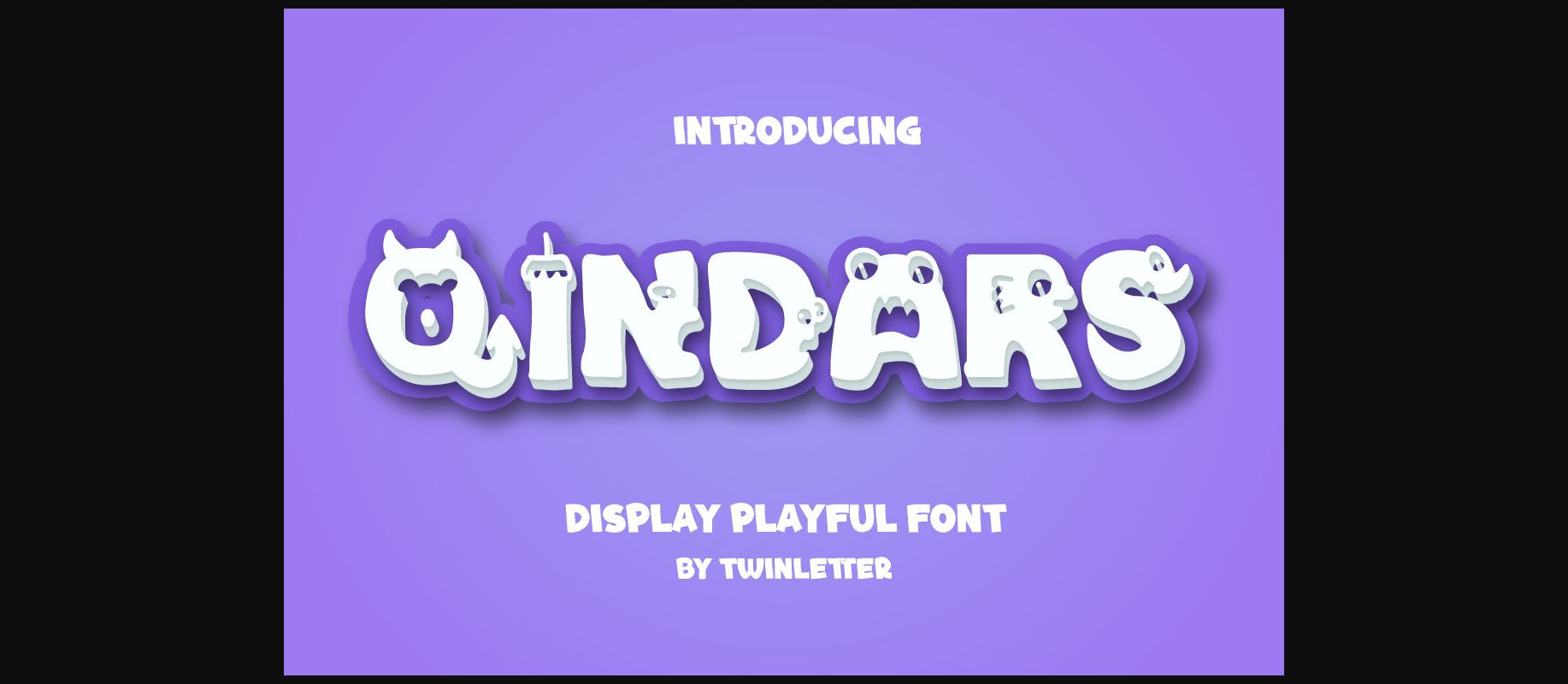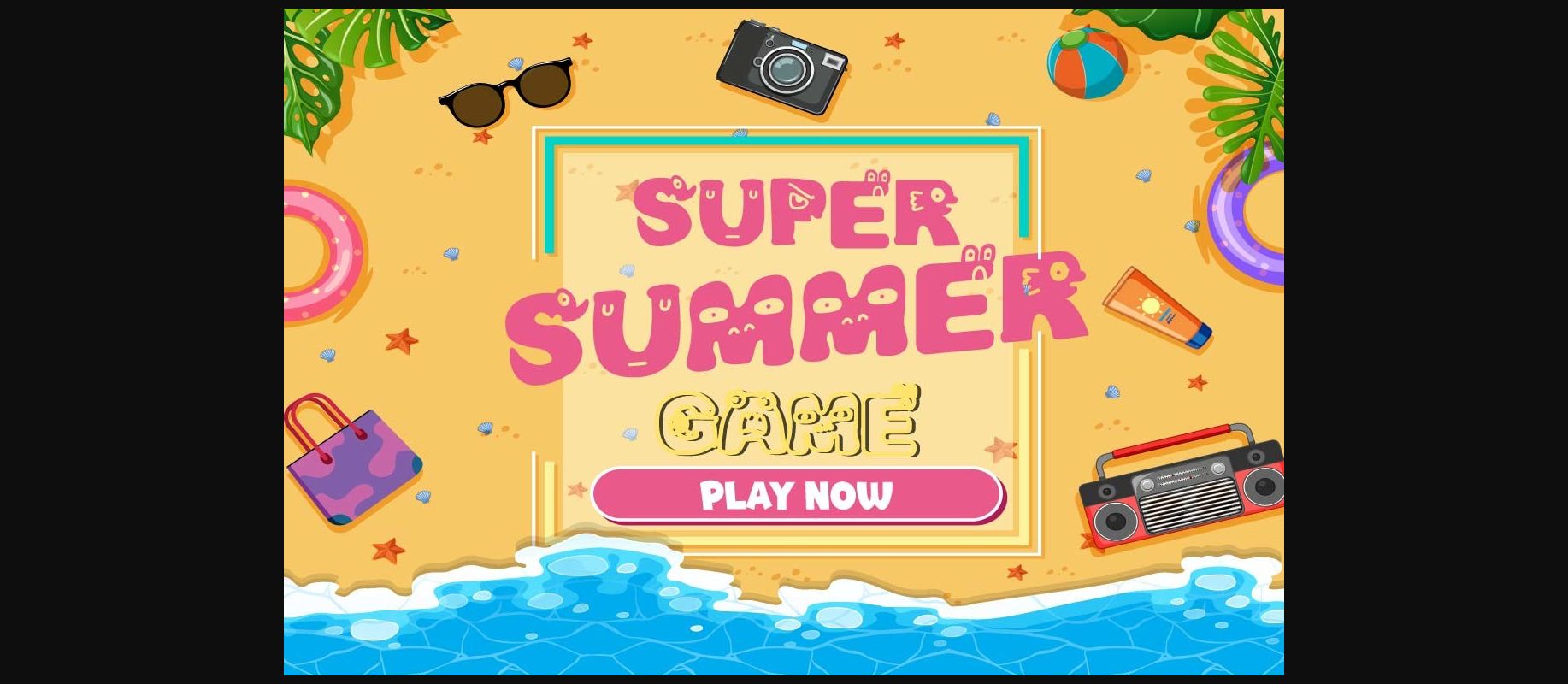
About Qindars Font
Qindars is a playful and fun decorative font. Whether you are using it for cartoon-related designs, children games, quotes, titles, brand names, book covers, posters, or just any creation that requires a touch of joy, this font is a great choice.